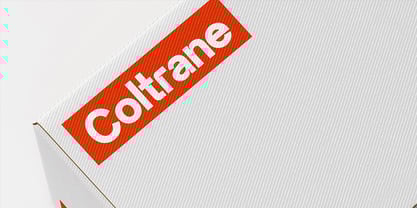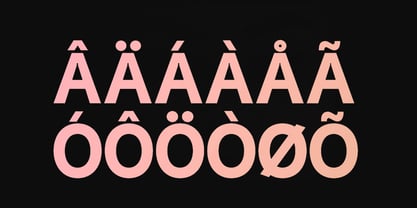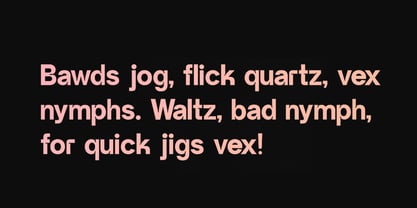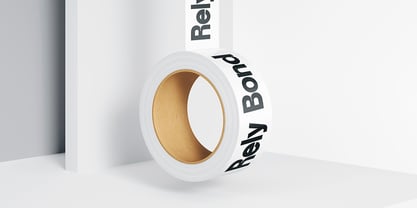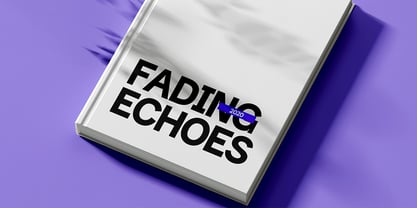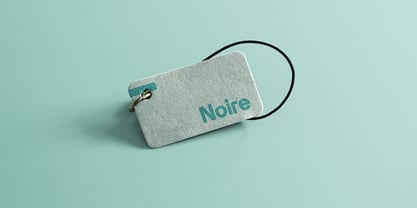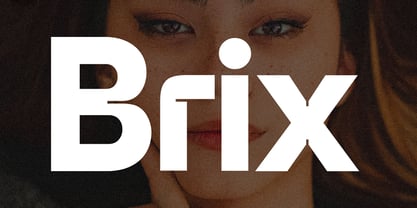
Brix Display
by Webhance
The Brix Display Font Family was designed by Ancy George and published by Webhance. Brix Display contains 1 styles.
The Brix font family is a contemporary sans-serif typeface designed for versatility and elegance. With its clean lines, balanced proportions, and minimalist aesthetic, Brix ensures high readability across various mediums. Whether used for branding, editorial design, UI/UX interfaces, or print, this font brings a refined, world-class look to your projects.